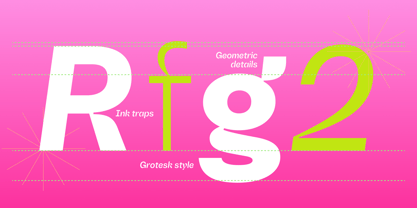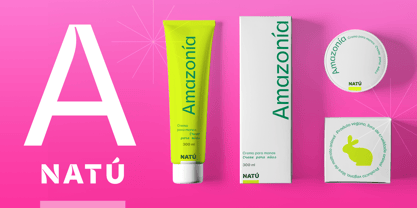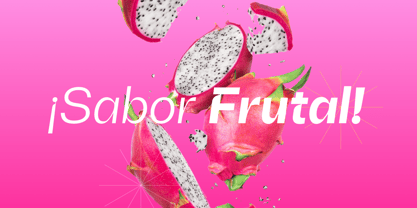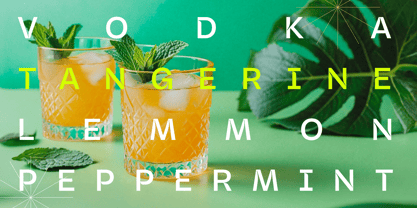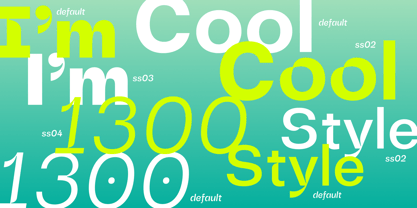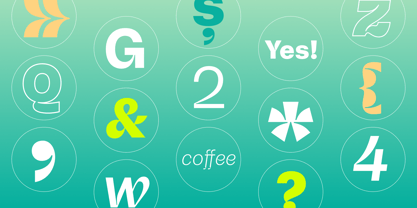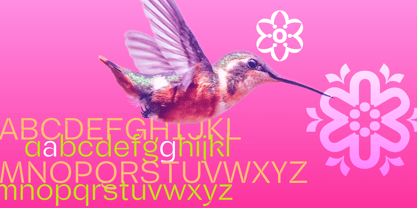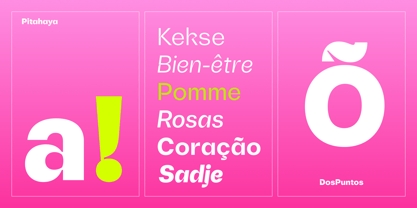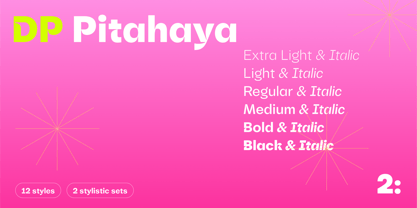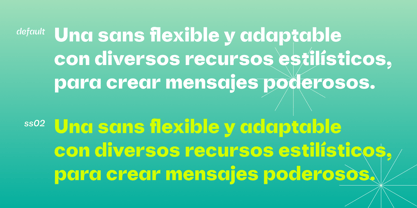
DP Pitahaya
by Dos Puntos
Pitahaya is a modern sans serif font with a clear geometric structure, and mimics the shapes of the classic grotesque style. It has a wide range of styling resources which allows the creation of powerful messages and innovative pieces of design. Its cuts and exaggerated ink traps were inspired by the intense flavor and diversity of shapes of tropical fruits like the pitahaya which gives its name.
Pitahaya was carefully programmed with Open Type features which allows multiple possible applications. Additionaly, its character set offers coverage for both Western and Central European languages.